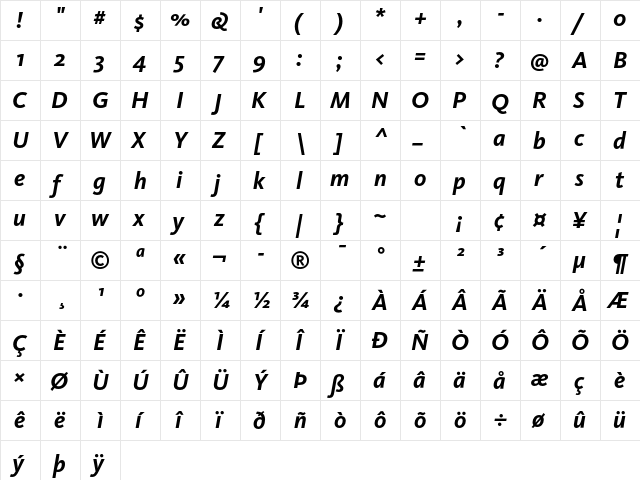
KievitPro-BoldItalic Regular Font Preview
| Foundry | FSI Fonts und Software GmbH |
| Designer | Mike Abbink, Paul van der Laan |
Design Context for KievitPro-BoldItalic Typeface
KievitPro-BoldItalic takes a measured approach to typography — its balanced proportions and neutral character make it a reliable workhorse for both digital and print work. Its italic angle brings a sense of urgency and motion to the letterforms. The heavy weight commands attention and anchors typographic hierarchies.
Pro Tip: Use KievitPro-BoldItalic for emphasis, pull quotes, and subheadings where its slanted energy can add rhythm to the layout.